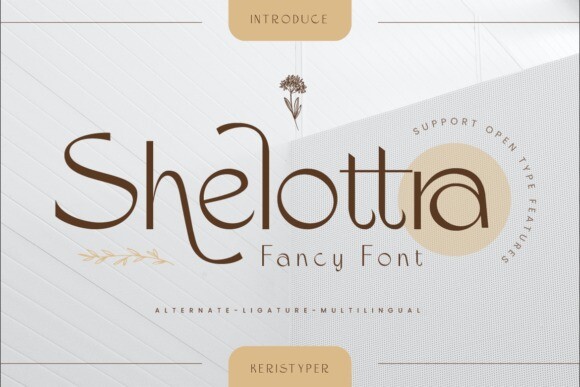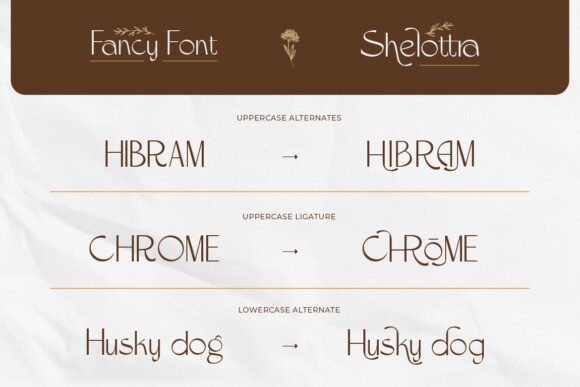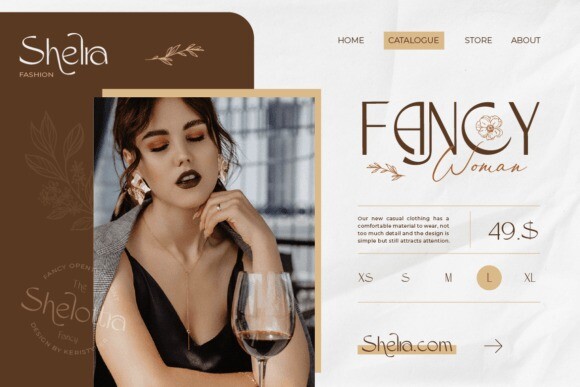
Shelottra Font
Shelottra is an elegant beauty fancy display font with expressive shapes and characteristics to bring magical imagination in your design. This font is good for logo design, Social media, Movie Titles, Books Titles, short text even long text letters, and good for your secondary text font with the script, sans, or serif.
Featured:
* Standard Uppercase & Lowercase
* Numeral & Punctuation
* Multilingual : ä ö ü Ä Ö Ü ß ¿ ¡
* Alternate & Ligature